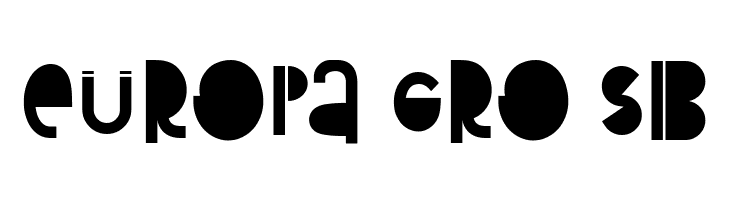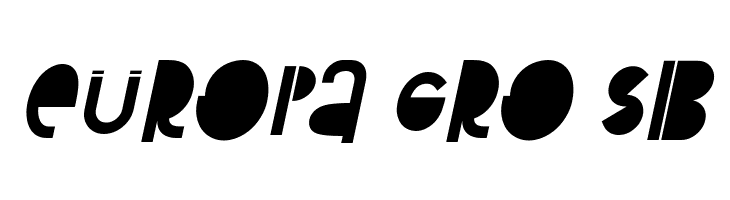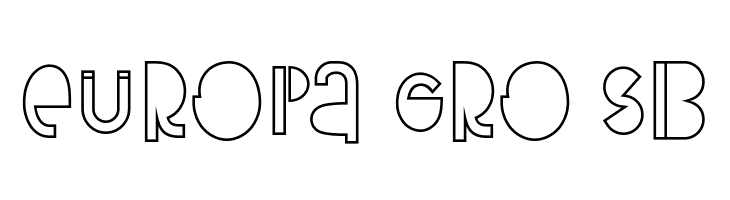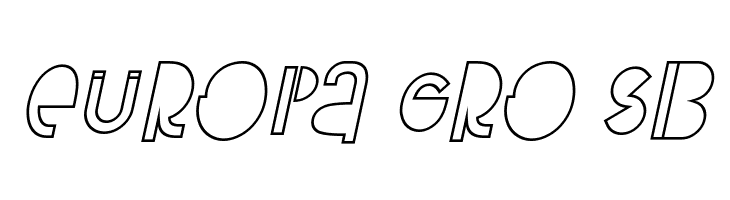
A bold, artistic font with unique geometric elements and playful design.
A bold, high-contrast italic font with dynamic and unique character shapes.
A modern, geometric outline font with artistic flair.
A modern, italicized outline font with a playful and dynamic style.